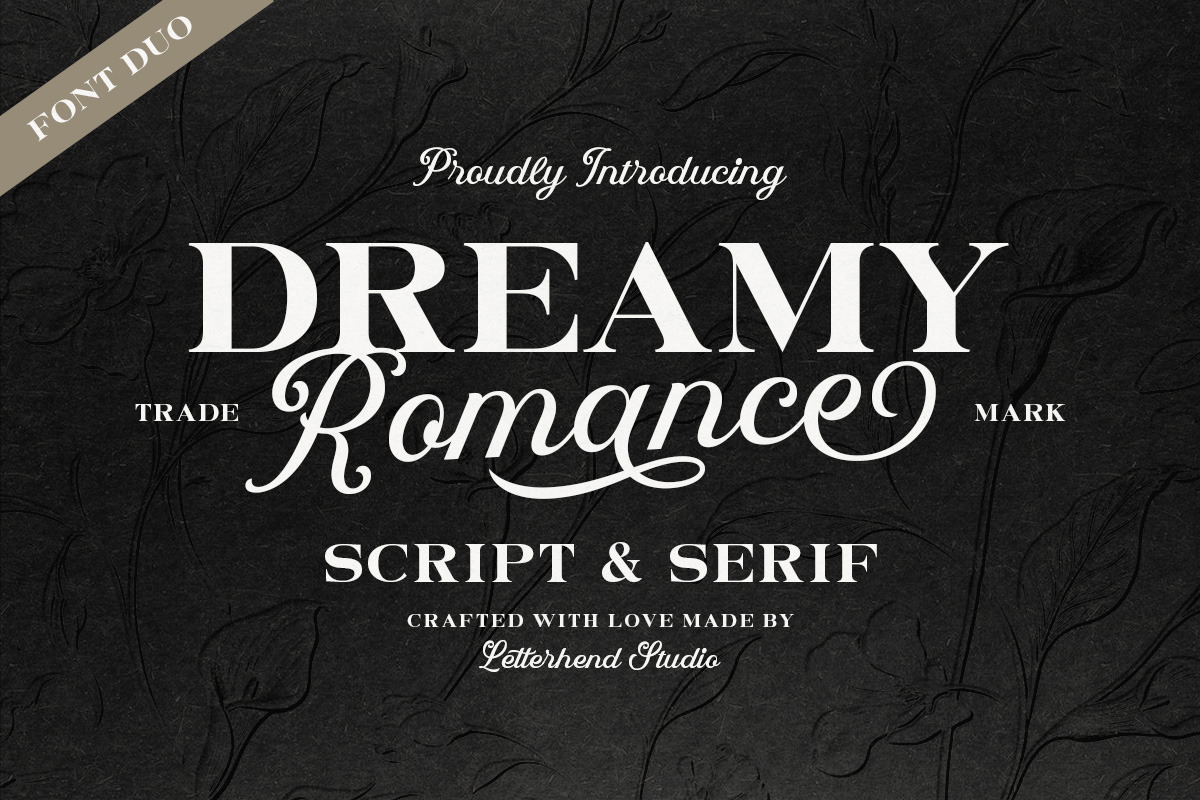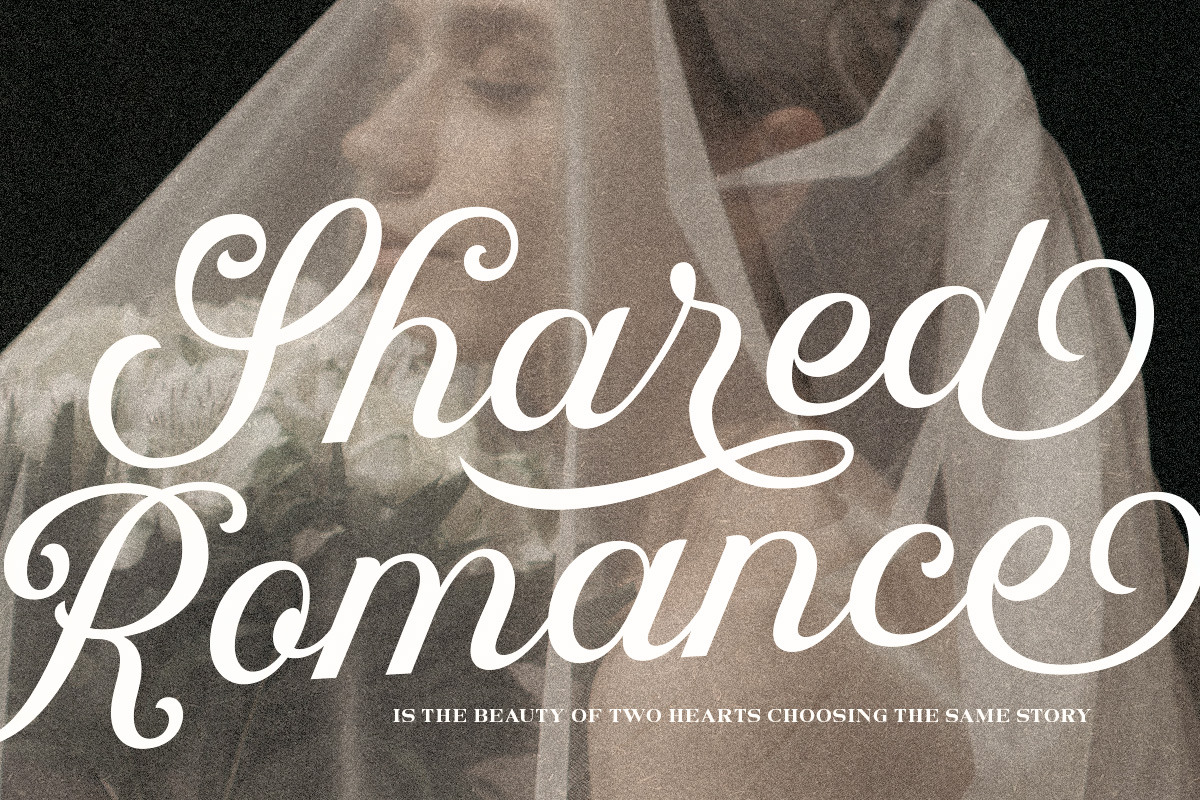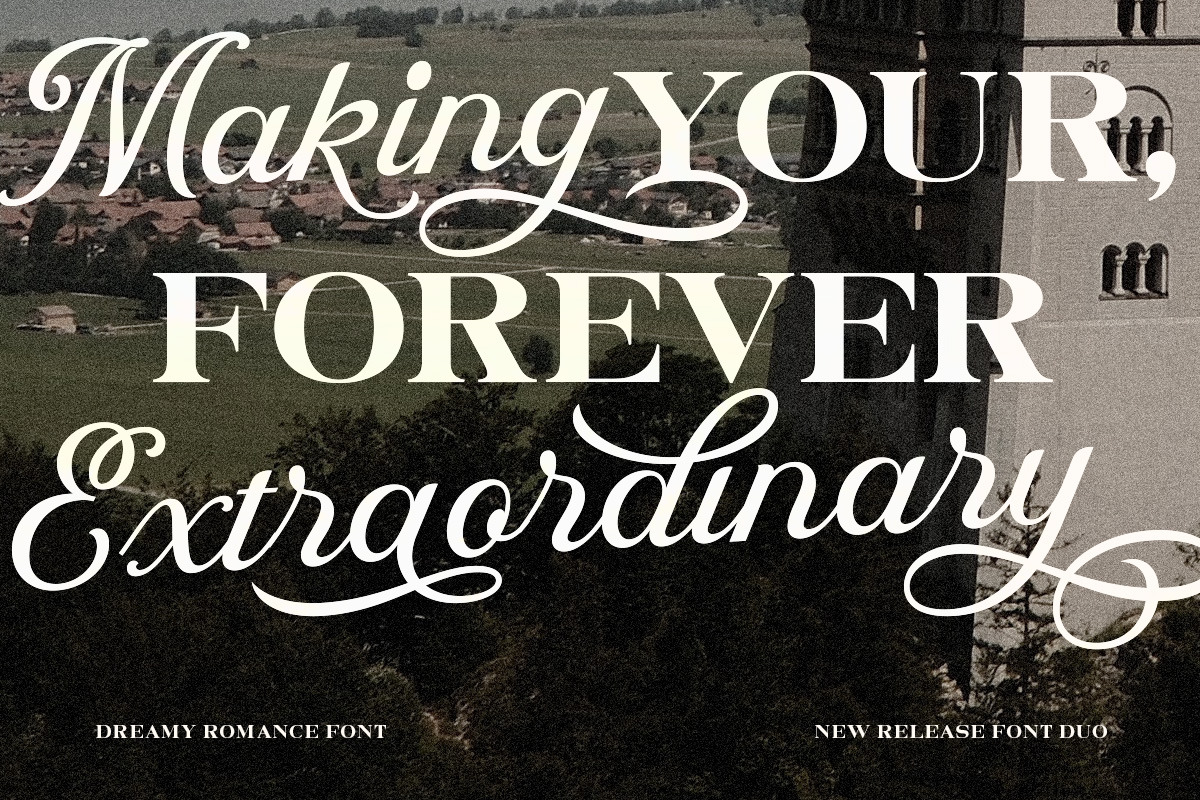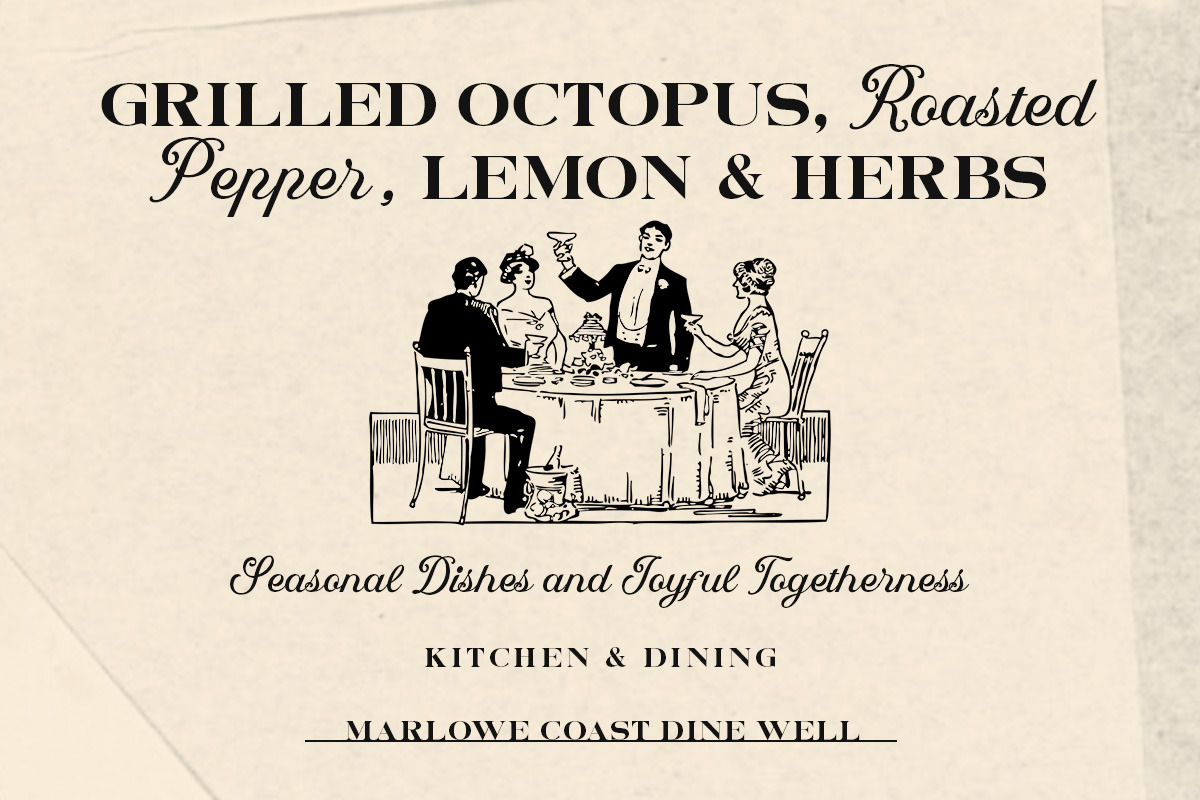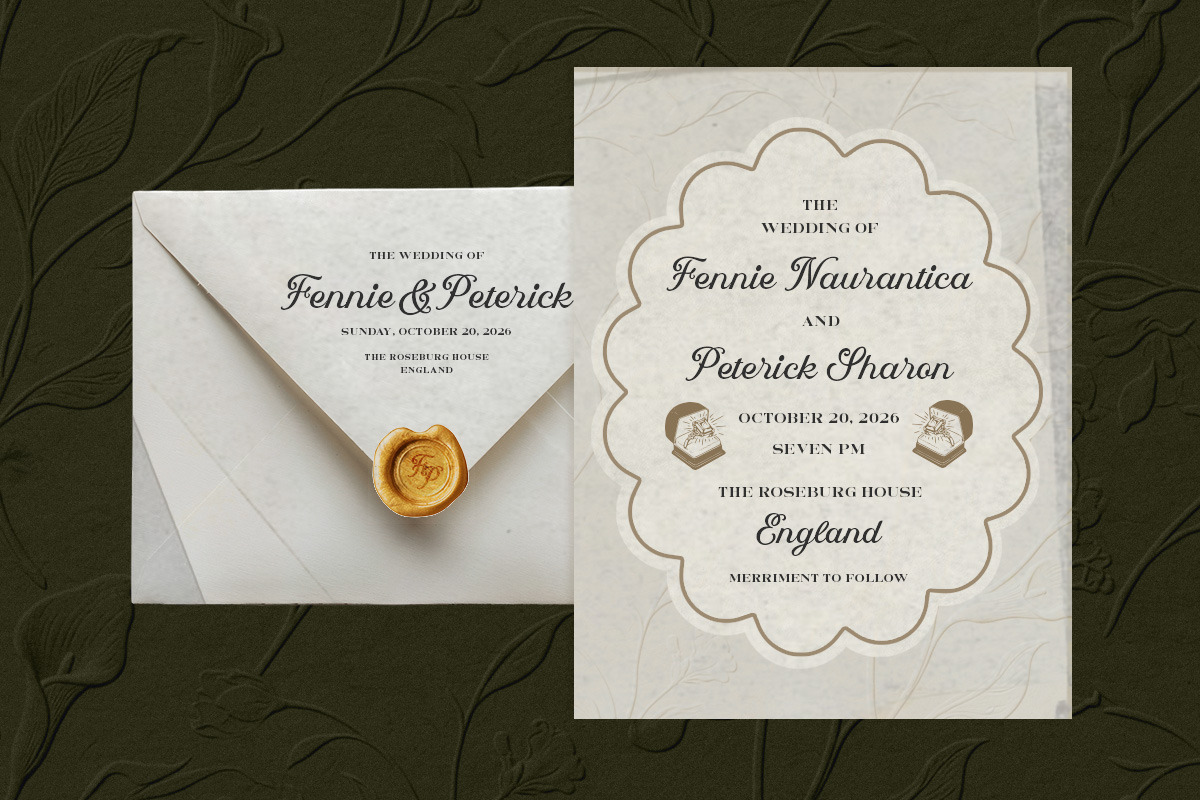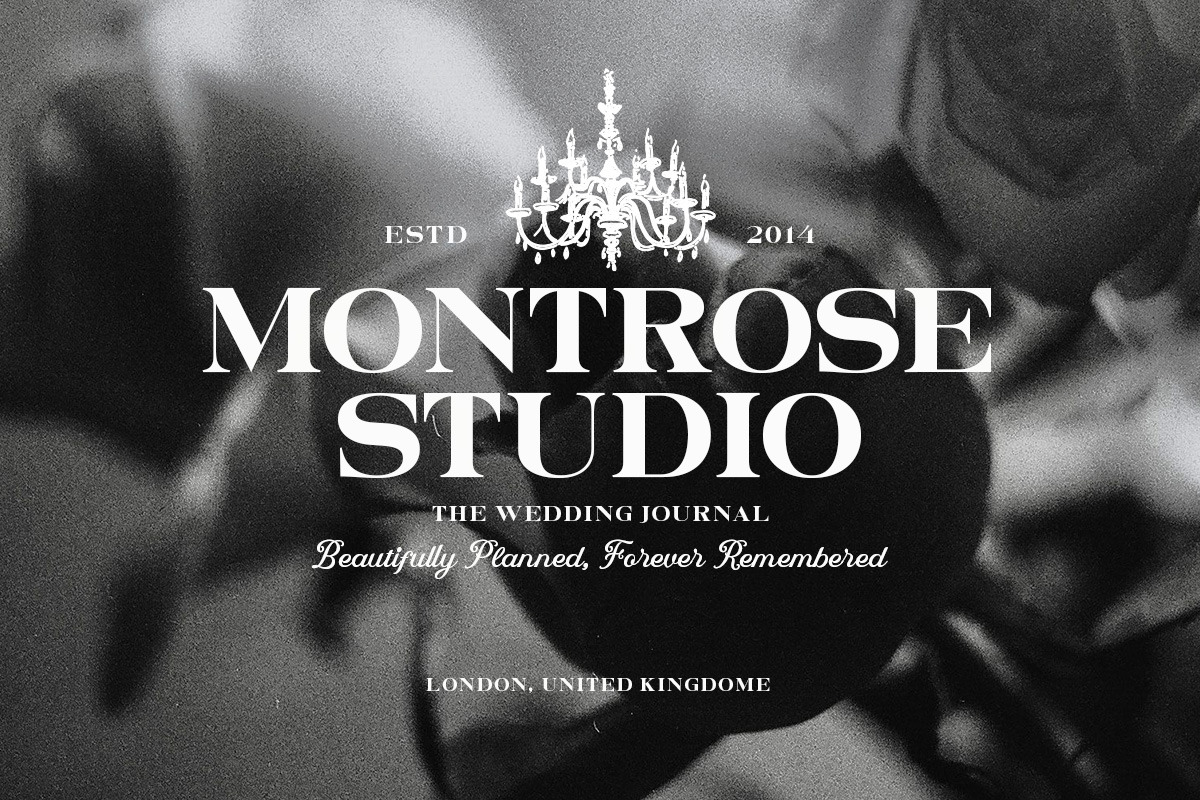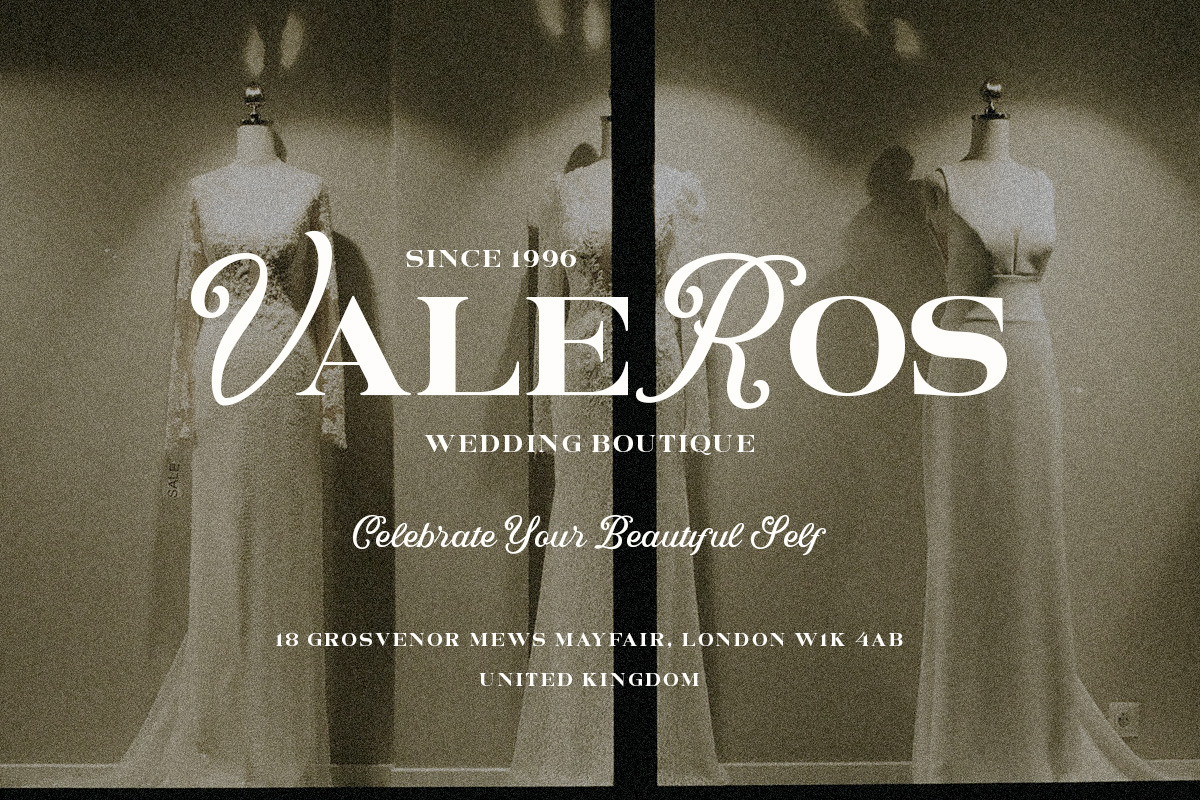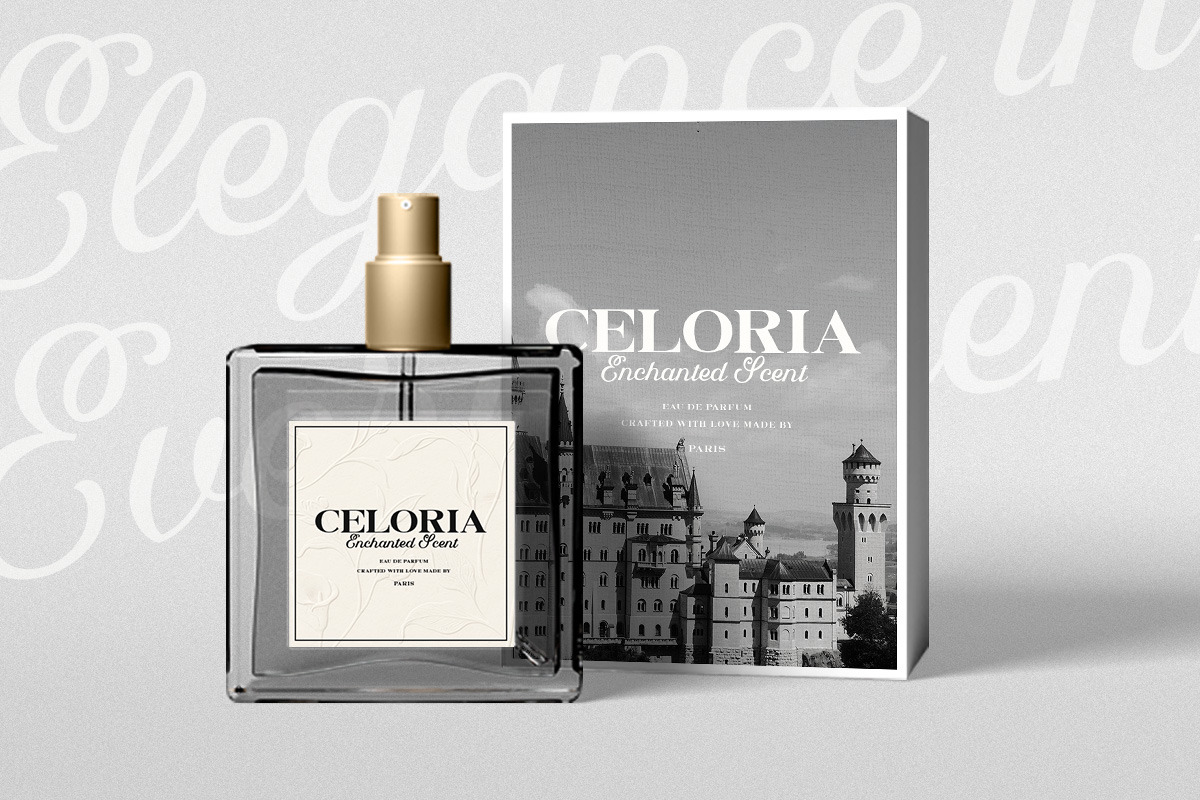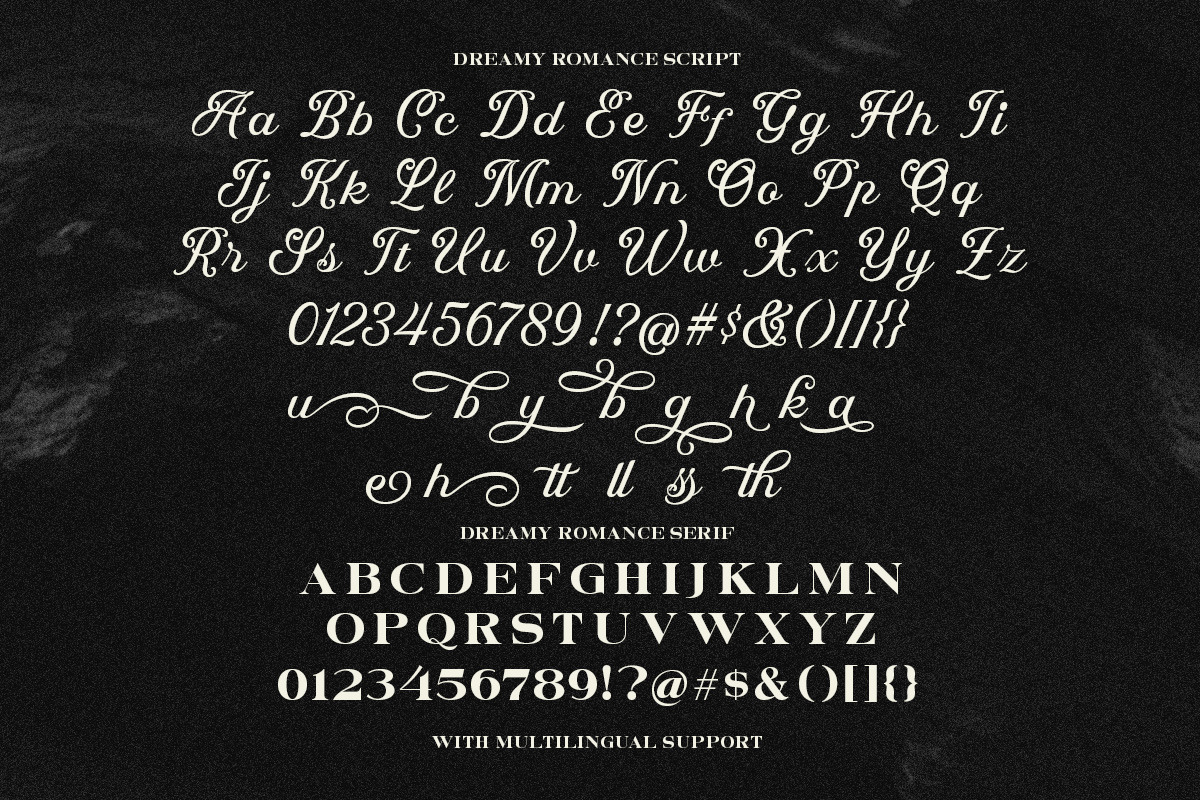
Dreamy Romance Editorial Font Duo
Dreamy Romance is a graceful font duo that brings together sweeping calligraphic script and a bold, sophisticated serif, creating a beautifully balanced contrast between romance and refined editorial style. The script flows with expressive curves, elegant swashes, and a handcrafted rhythm, while the serif adds structure with its dramatic high-contrast letterforms.
Uppercase & lowercase
Numbers and punctuation
Alternates & Ligatures